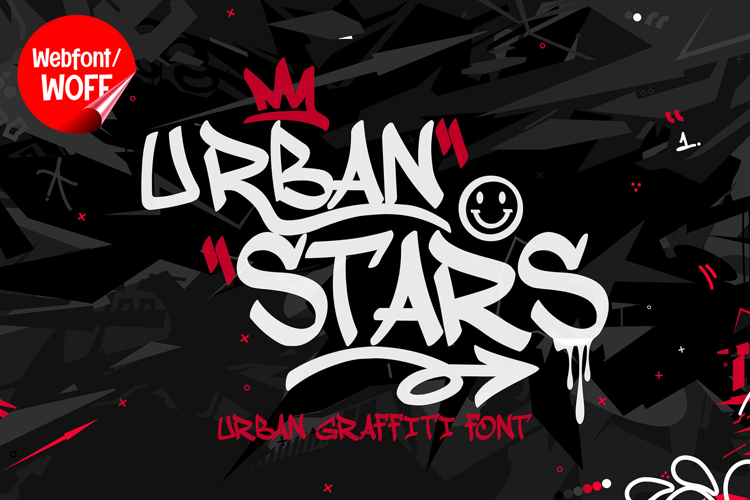
Urban Stars | Monoline Graffiti Tags Webfont
Urban Stars is a monoline graffiti tags webfont designed to bring a clean yet expressive street-style aesthetic into modern website design. Inspired by classic graffiti tagging techniques, this font features smooth single-line strokes that create a natural handwritten flow while maintaining a polished and readable structure for digital use. It is an excellent choice for projects that need an urban identity with a modern and minimal touch.
Urban Stars includes a complete set of uppercase characters designed with a monoline structure. The consistent stroke weight gives the font a smooth and cohesive appearance, while the graffiti tag style adds personality and movement. These letterforms are ideal for headlines, logo-style text, banners, and featured sections where a distinctive yet clean graffiti look is needed.
In addition to letters, the font includes numbers and punctuation, making it versatile for various website elements. It works well for promotional text, short messages, navigation highlights, and interface accents. Each character maintains a consistent monoline style, ensuring a unified and professional visual identity throughout the layout.
With multilingual support, Urban Stars includes a wide range of accented characters, making it suitable for international websites and global audiences. This allows content to be displayed clearly across different languages while preserving the graffiti-inspired aesthetic.
The monoline graffiti tag style of Urban Stars makes it especially suitable for urban-themed websites, streetwear brands, music platforms, creative portfolios, and lifestyle blogs. Its clean stroke design offers a modern interpretation of graffiti, making it adaptable for contemporary digital projects. The flowing lines add energy and rhythm without overwhelming the overall composition.
Despite its expressive style, Urban Stars is designed with readability in mind. The spacing and stroke consistency are carefully balanced to ensure clarity, particularly in short text applications and display sizes. This makes it effective for both visual highlights and supporting interface elements.
Urban Stars is a webfont that combines graffiti inspiration with clean monoline precision. Its smooth curves, consistent structure, and expressive tag style create a distinctive typographic look that enhances modern website design. For projects that require a stylish graffiti touch with clarity and versatility, Urban Stars delivers a balanced and impactful solution.